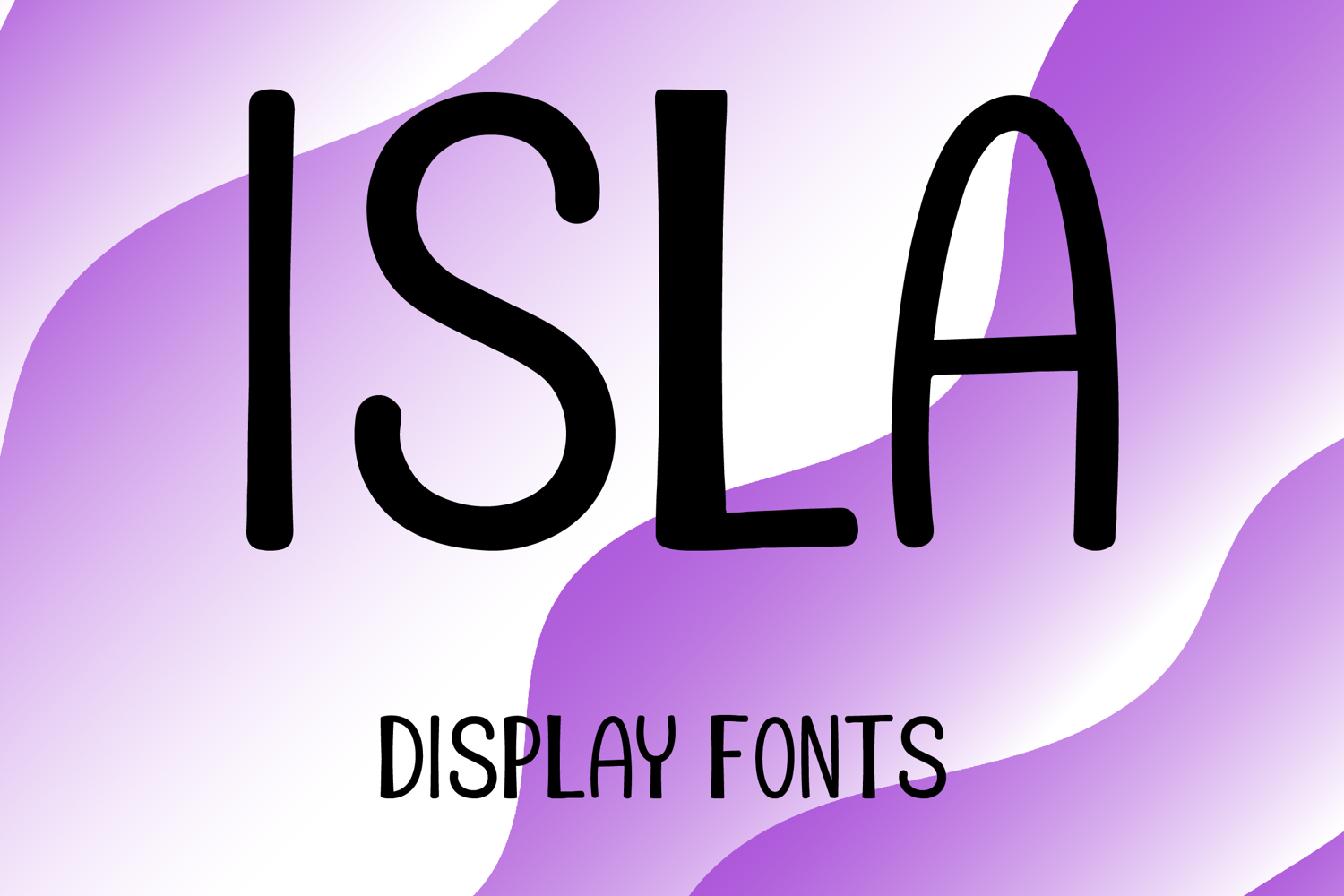
ISLA
ISLA is a modern minimalist display font with a tall hand-drawn style and clean artistic charm. Its uppercase letterforms feature slim rounded strokes, soft curves, and a sleek airy structure that creates a stylish, elegant, and eye-catching look. Designed with uppercase letters A–Z and numbers 0–9, ISLA is perfect for branding, logos, posters, packaging, headlines, social media graphics, and creative projects that need a fresh and memorable statement.